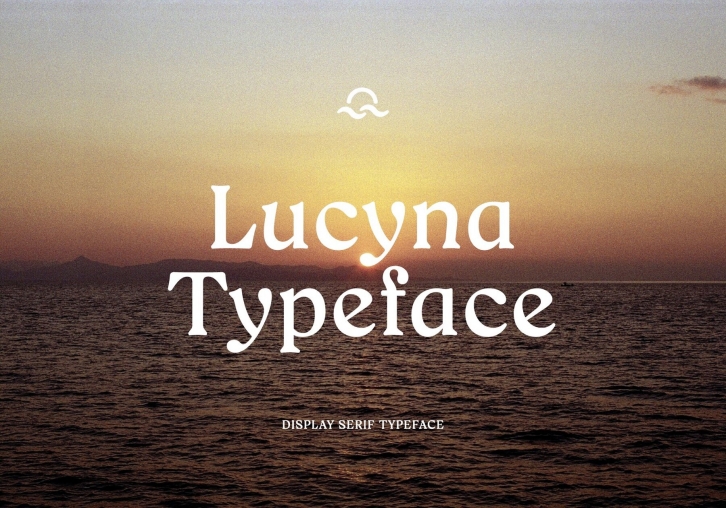
Lucyna serif font is a stylish and sophisticated typeface that exudes elegance and refinement. The font's unique design, inspired by the natural beauty and fluidity of the sea, features clean and well-defined serifs that give it a distinctive and timeless character.